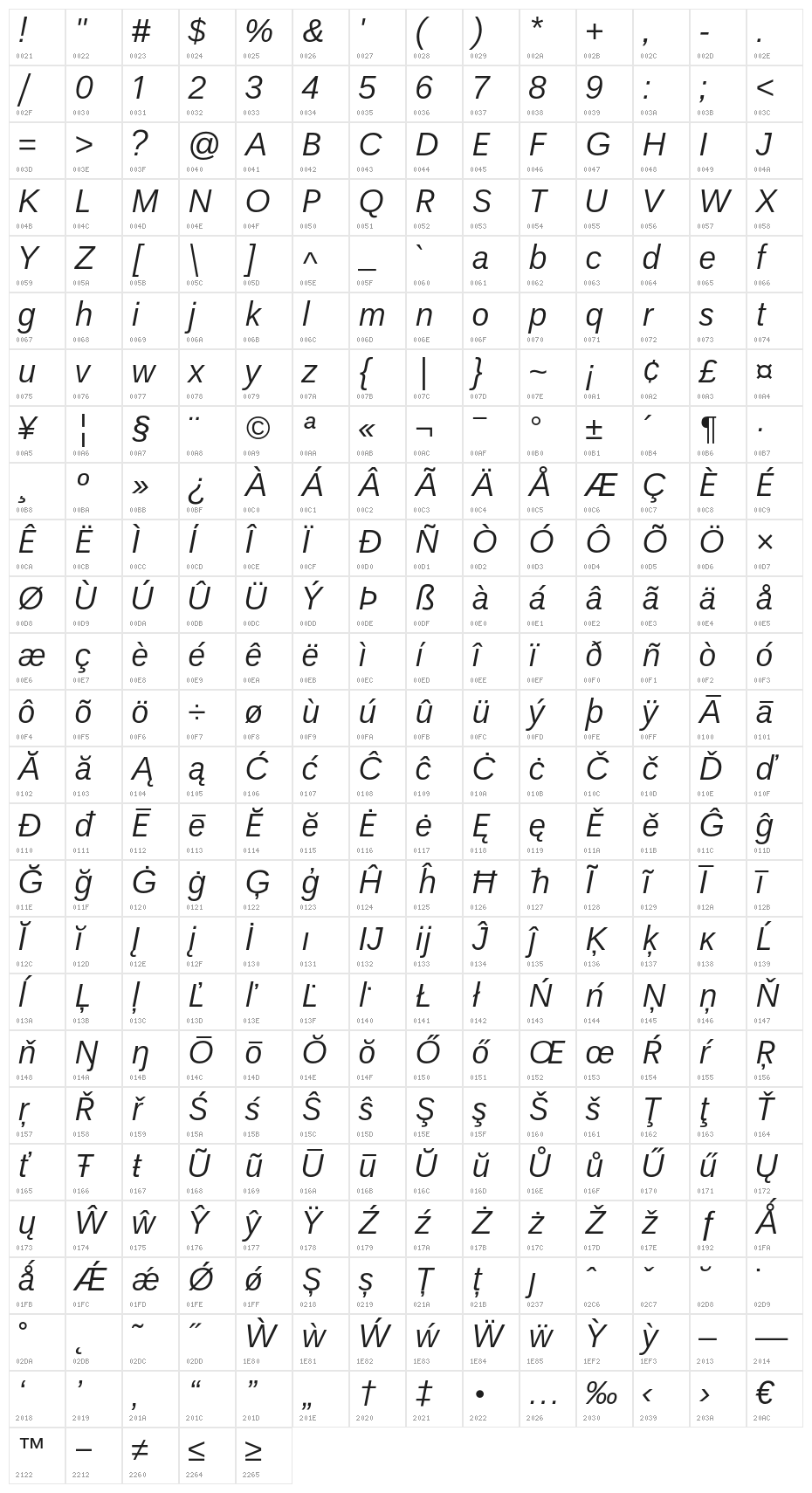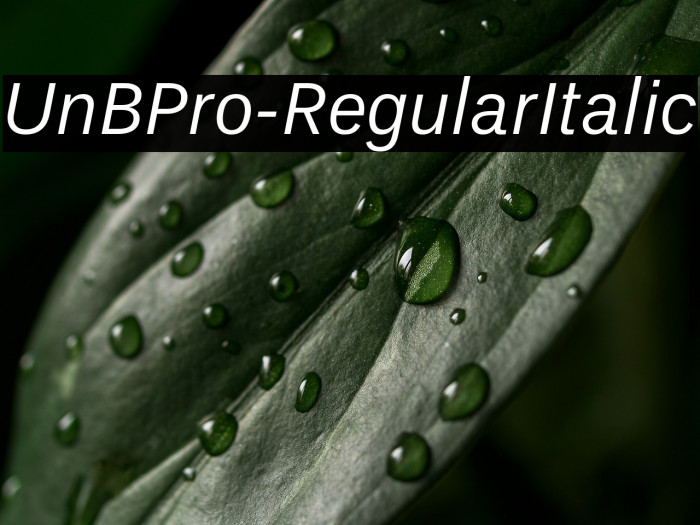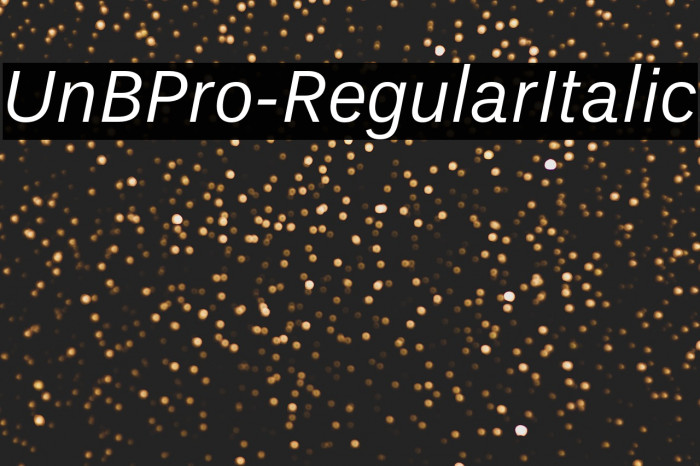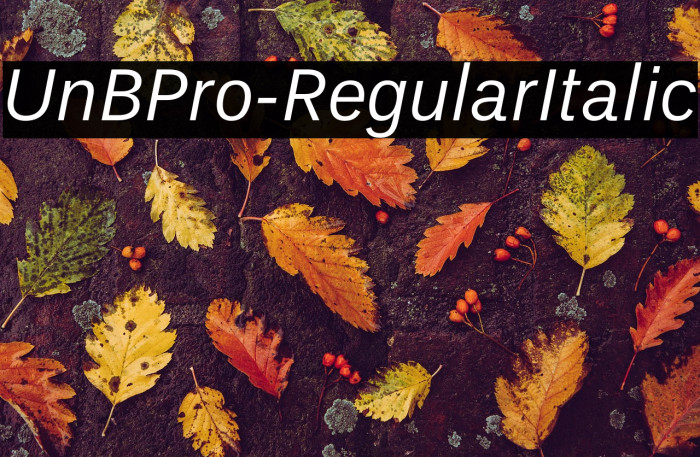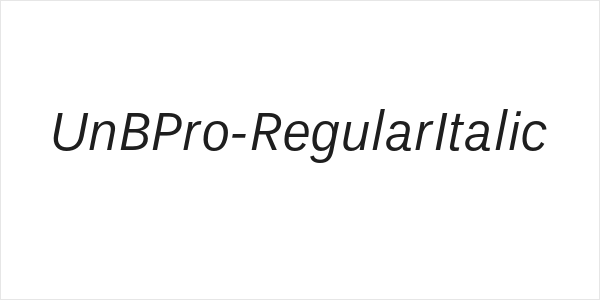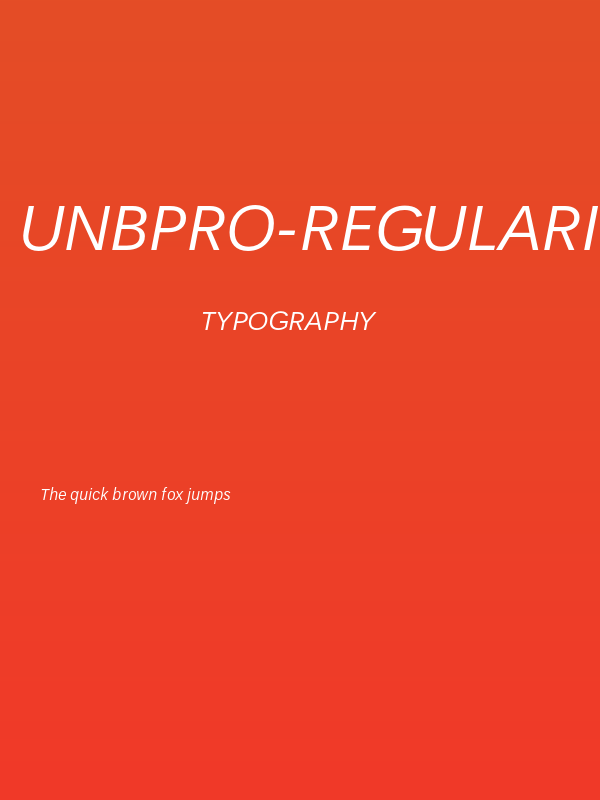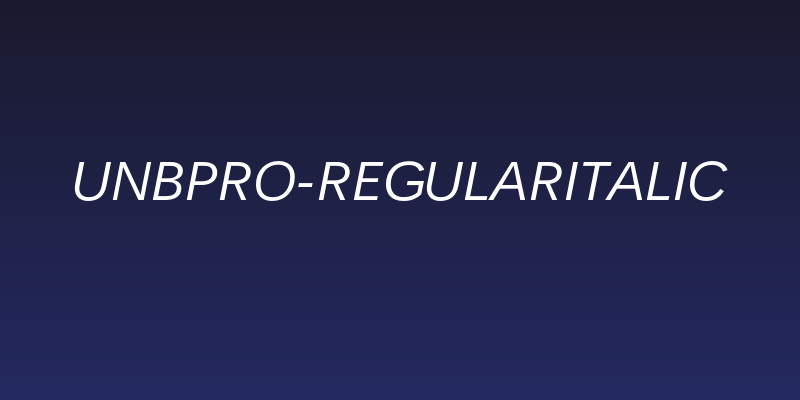
UnBPro-RegularItalic Font
UnBPro-RegularItalic Description
This font exhibits a sleek and modern design with a slight italic slant, giving it a dynamic and forward-moving appearance. The characters are clean and well-defined, with a consistent stroke width that maintains readability across different sizes. The uppercase letters are bold and commanding, while the lowercase letters are more subdued, offering a nice balance. The numerals are clear and distinct, making them suitable for both text and numerical data. Special characters are included, enhancing the font's versatility for various applications.
| Proposed Projects | Ideal for use in modern branding, digital interfaces, and editorial design where a contemporary and professional look is desired. |